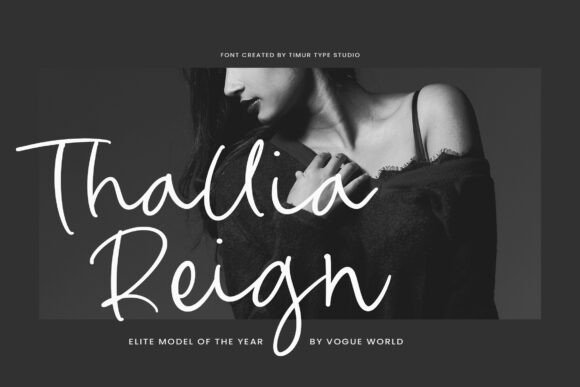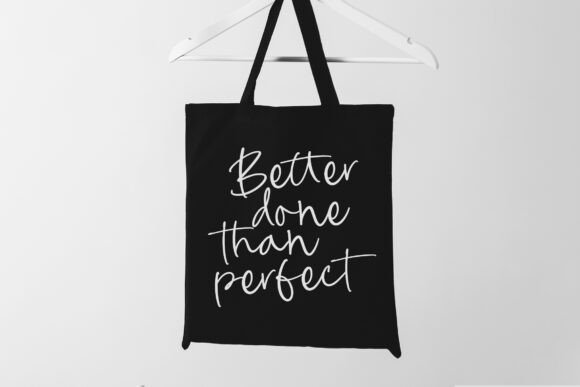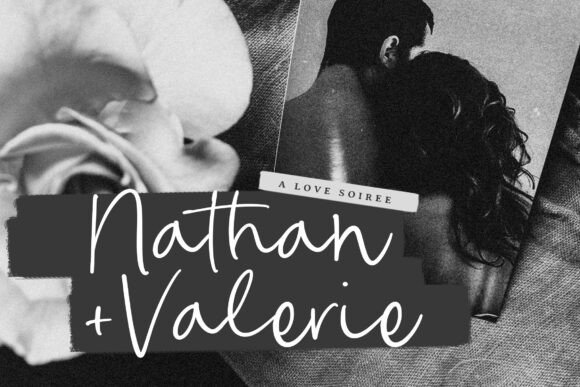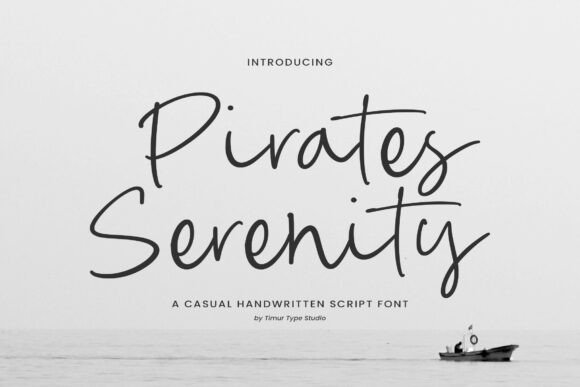
Introduction to Pirates Serenity Font
Pirates Serenity is a casual handwritten script font that blends a laid-back, breezy flow with a touch of nautical charm.
Its smooth, slightly messy strokes evoke the feel of quick yet stylish penmanship, making it perfect for logos, invitations, quotes, and branding that needs a relaxed vibe .